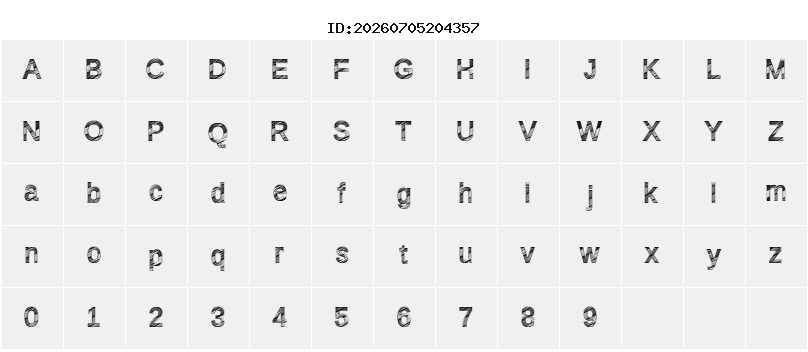
DiscoFresca Preview
• Font Name: DiscoFresca
• Full Font Name: DiscoFresca
• Version: Version 1.00 March 25, 2014, initial release
• Designer: Xerographer Fonts Max Infeld
• Manufacturer: Xerographer Fonts
• Description: Made at Xerographer Studios in Chico,CA
About DiscoFresca.ttf
DiscoFresca.ttf is a modern, elegant sans-serif font designed for ultimate readability and visual harmony. Perfect for branding, headlines, web design, and print materials.